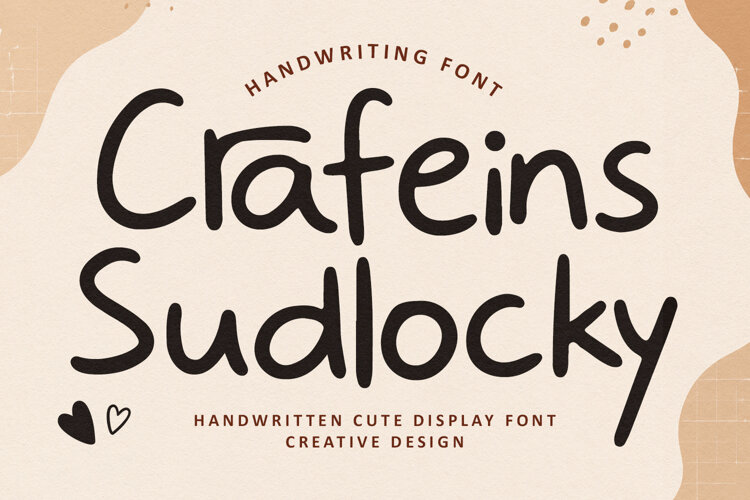
Crafeins Sudlocky Modern Cute Font
Crafeins Sudlocky is a charming, modern handwriting display font designed to bring warmth, playfulness, and a handcrafted feel to creative projects. Featuring smooth curves, clean letterforms, and subtle handwritten variations, this typeface delivers excellent legibility while maintaining a relaxed aesthetic. Complete with uppercase and lowercase character sets, numbers, punctuation, special ligatures, and multilingual support, it offers versatility for both digital media and physical branding applications.
Ideal for coffee shop menus, cozy bakery signage, greeting cards, quote posters, social media graphics, product packaging, and branding assets, Crafeins Sudlocky seamlessly blends organic handwriting warmth with contemporary typography standards. Its friendly character shapes make it a standout choice for projects requiring a welcoming, lighthearted, and approachable visual identity.